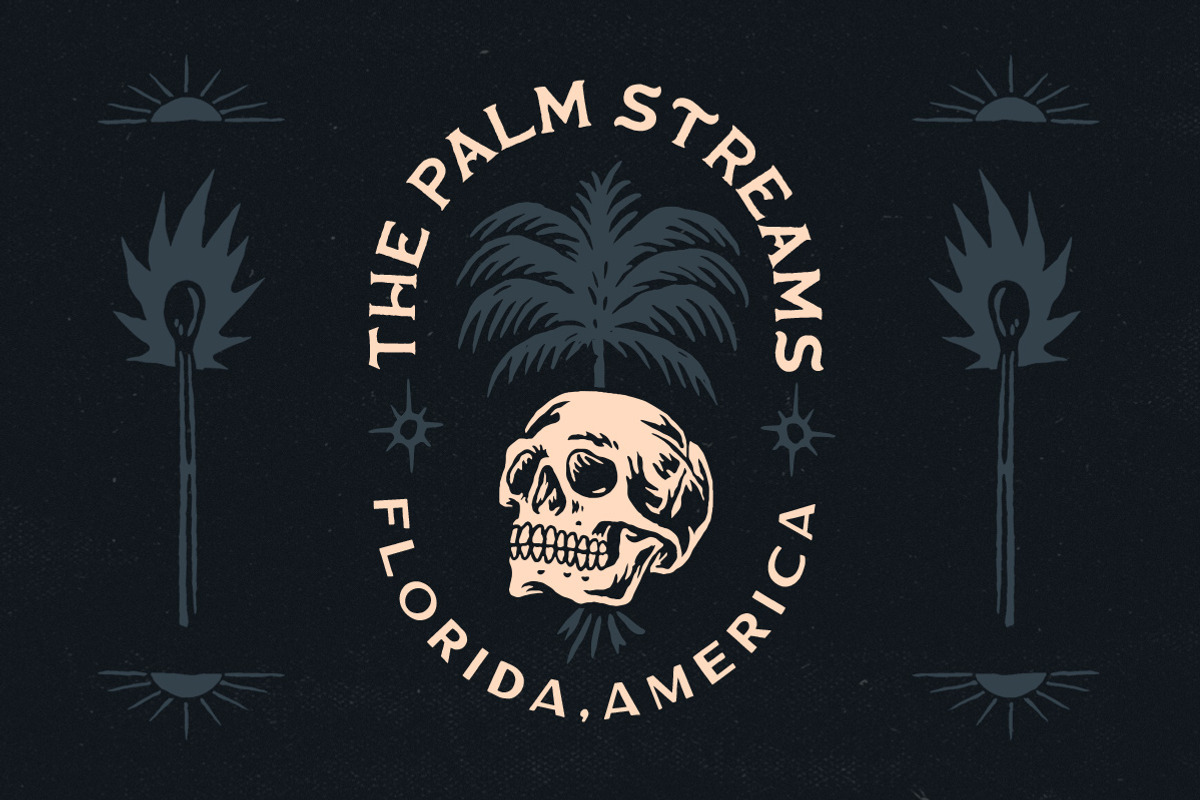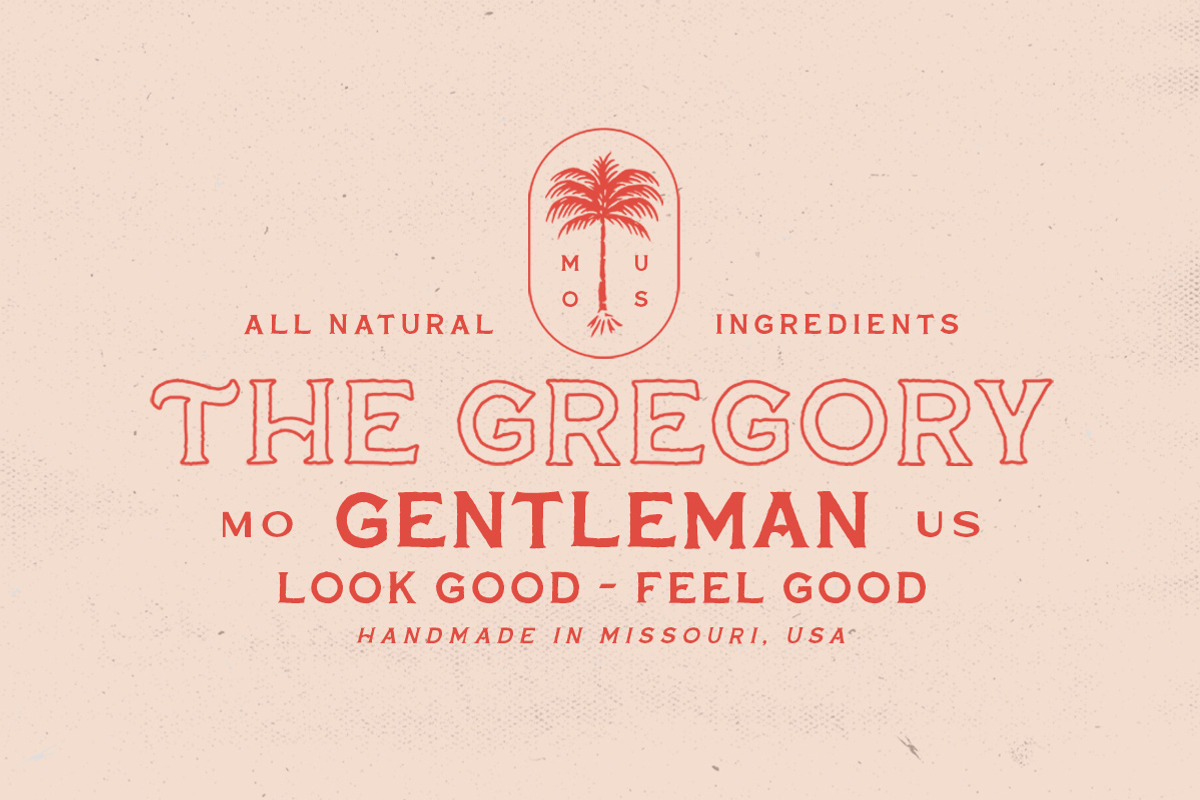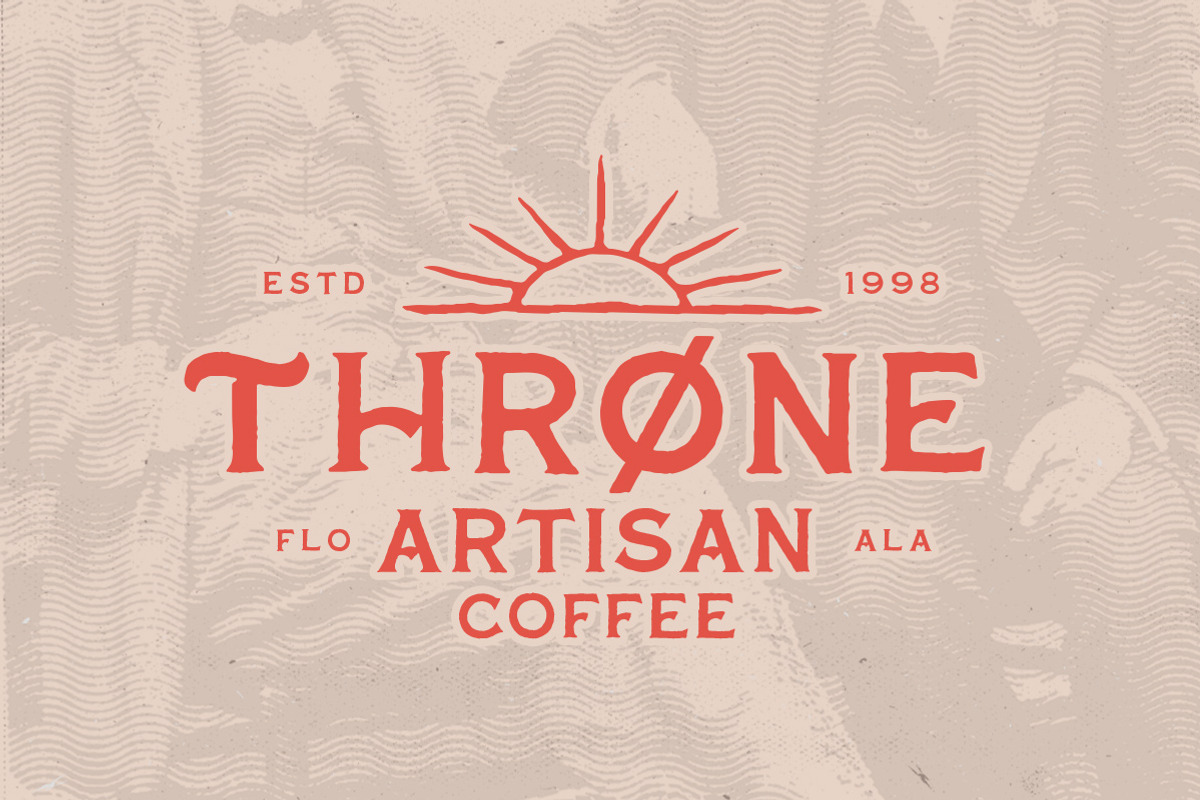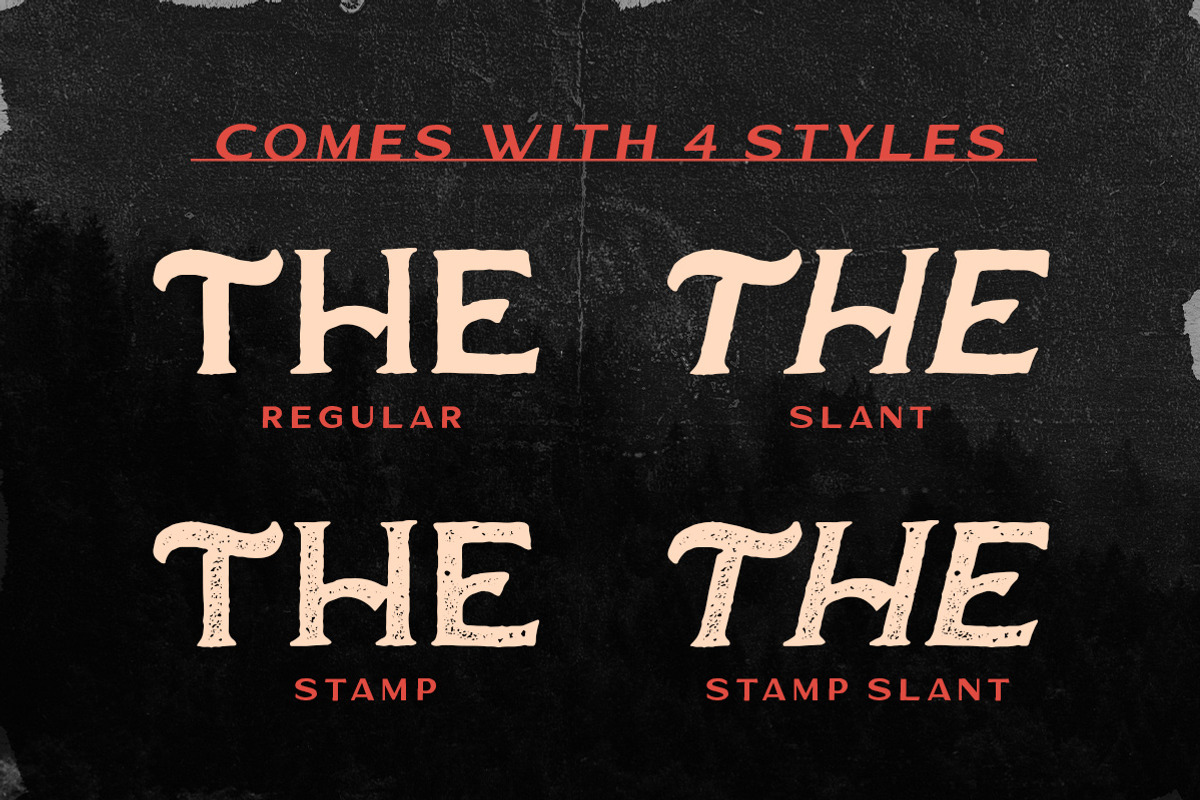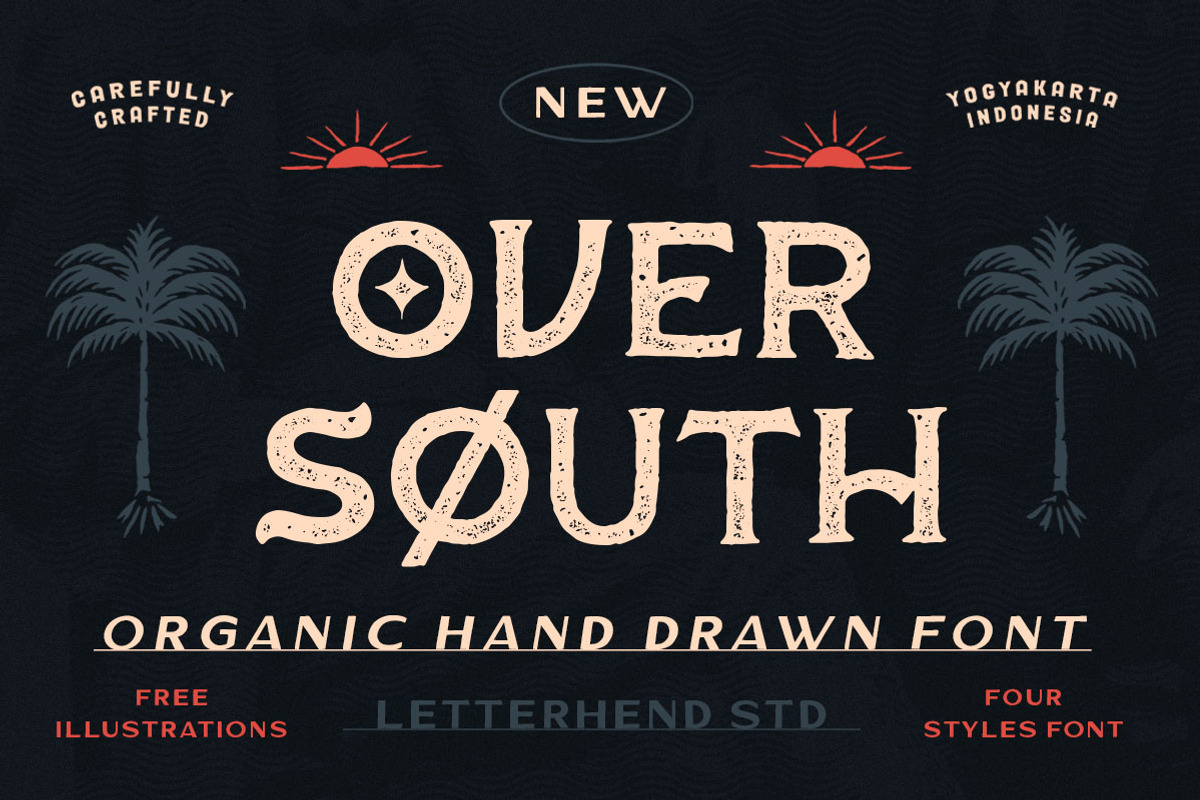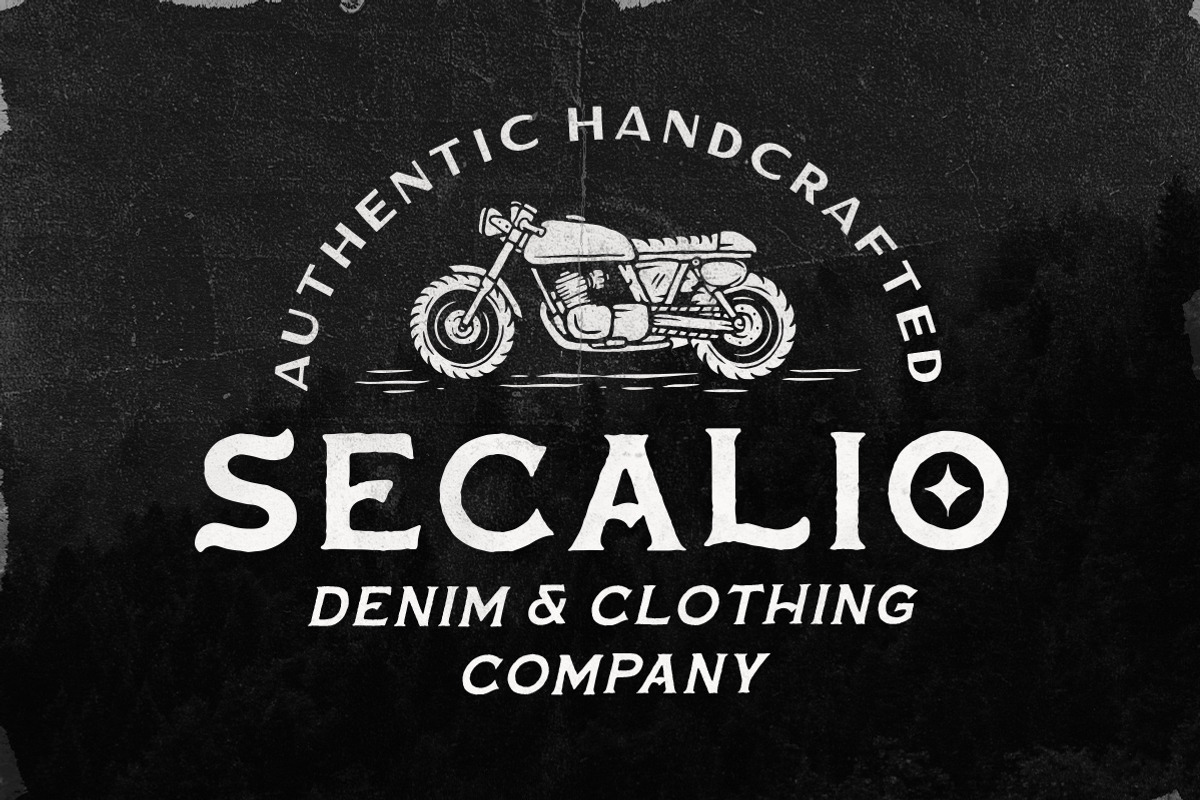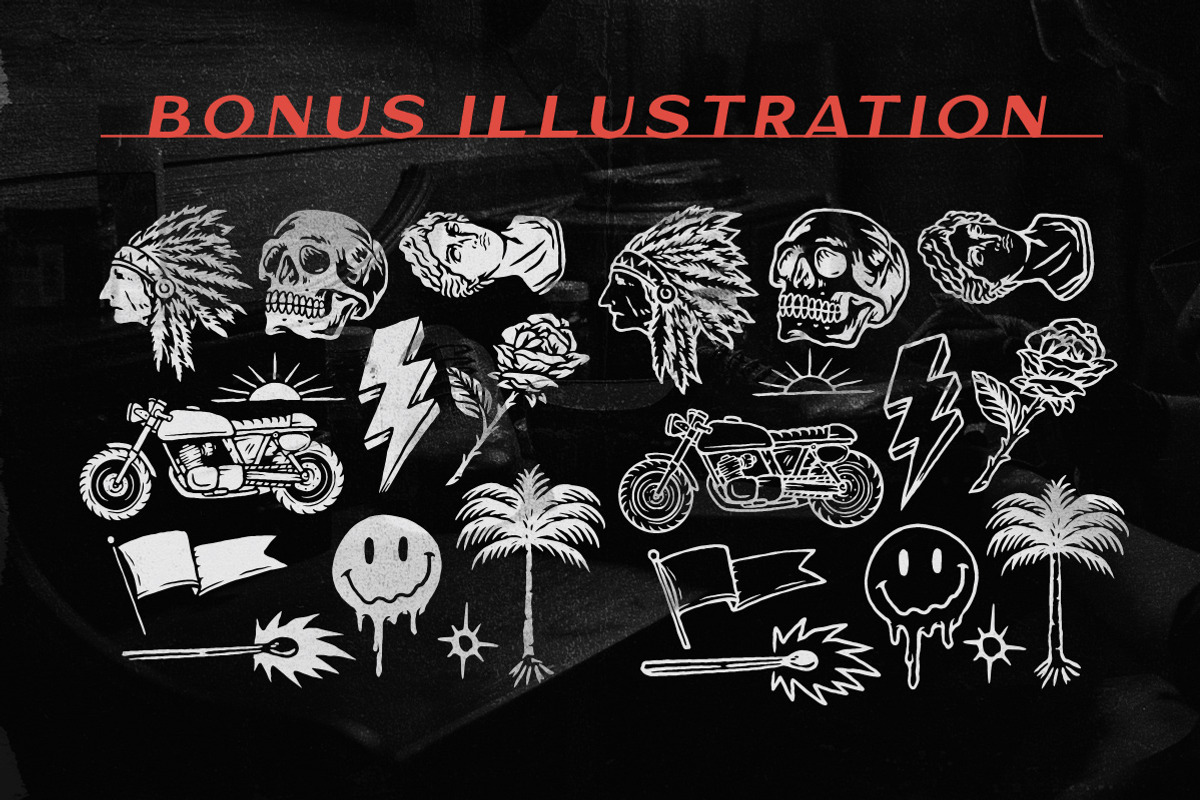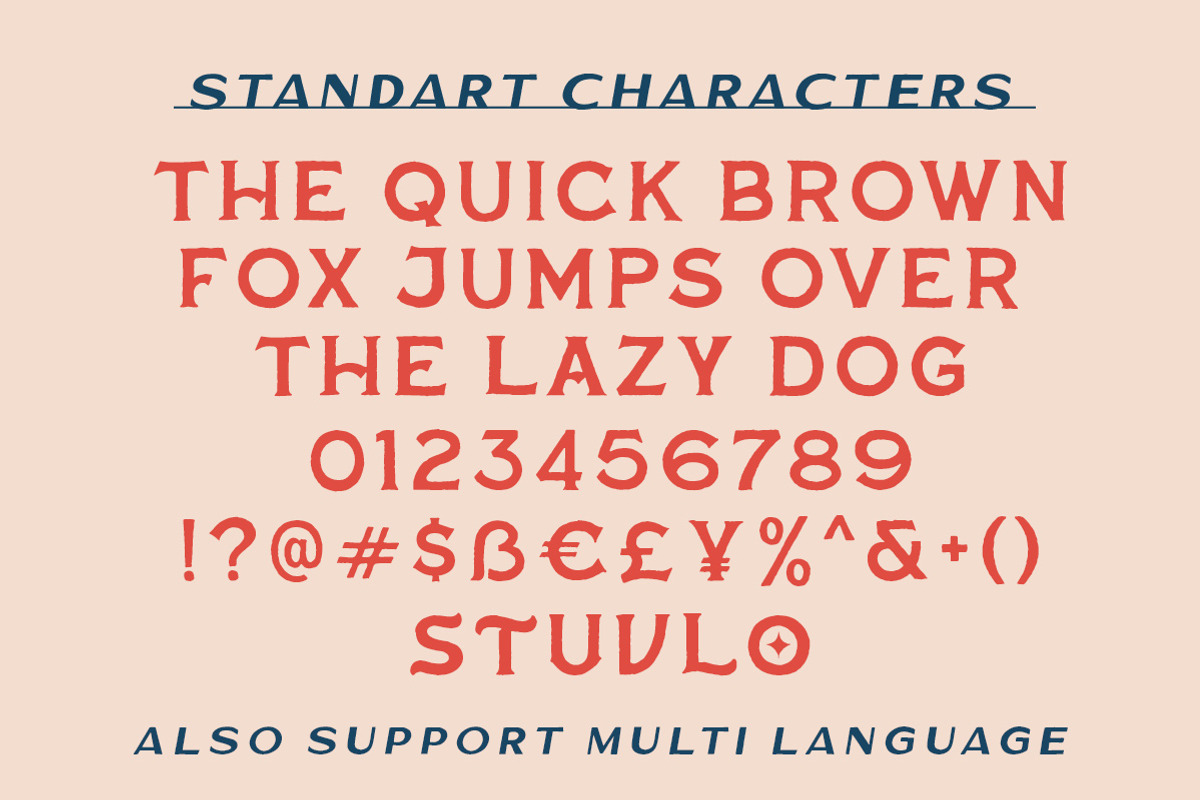
Over South Font + Free Illustration
Introducing, Over South, an organic hand drawn bold serif with a touch of vintage look and feel. This font is include 11 hand drawn illustration object in two styles (solid and outline). This type of font perfectly made to be applied especially in logo, headline, signage and the other various formal forms such as invitations, labels, logos, magazines, books, greeting / wedding cards, packaging, fashion, make up, stationery, novels, labels or any type of advertising purpose.
- alternates / swashes and ligatures
- Free 11 illustration in two styles